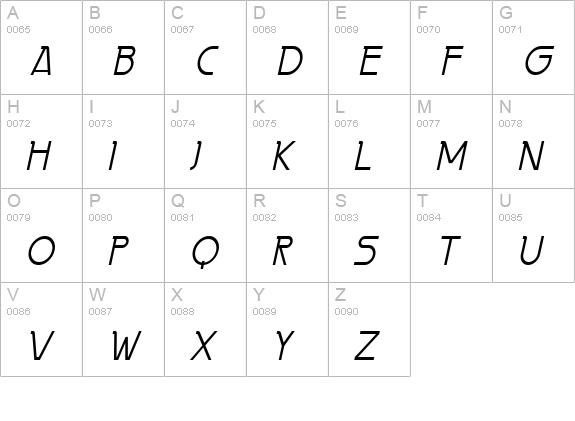
Persia Condensed Italic is a distinctive, condensed-width, italic variant in the Persia typeface family \xE2\x80\x94 well suited to design and typography projects.
Persia Condensed Italic font exudes elegance and sophistication, capturing the essence of timeless beauty. Its slender and elongated letterforms gracefully dance across the page, commanding attention and leaving a lasting impression. The italicized design adds a touch of flair and fluidity, imbuing any text with a sense of dynamism and movement. Each letter is meticulously crafted, with delicate curves and precise angles that seamlessly blend together, creating a harmonious visual rhythm. This exquisite font effortlessly combines tradition with modernity, making it perfect for a wide range of design projects. Whether used for headlines, logos, invitations, or branding materials, Persia Condensed Italic font adds a touch of class and refinement to any composition. One of the most remarkable aspects of Persia Condensed Italic font is that it is free. Yes, you read it right! This stunning font is freely available to download at FontsMarket.com. Now, you can elevate your designs without breaking the bank. So why wait? Embrace the beauty and versatility of Persia Condensed Italic font and take your creative endeavors to new heights. Download this extraordinary typeface today and unlock a world of endless possibilities.